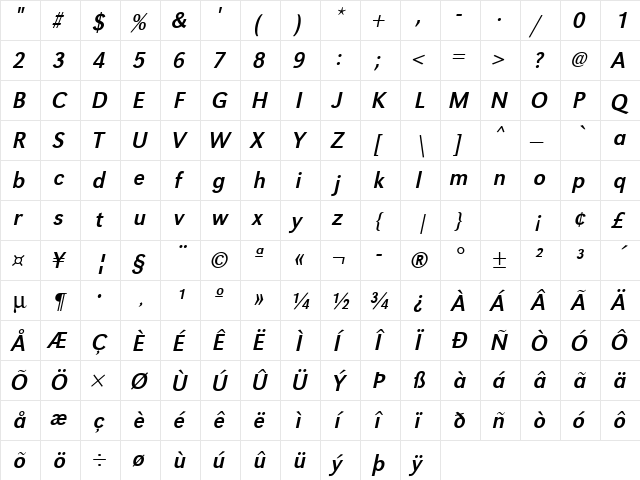
URWGroteskTNar Oblique Font Preview
URWGroteskTNar Oblique
Design Context for URWGroteskTNar Typeface
URWGroteskTNar has the quiet confidence of well-executed sans-serif typography: versatile, unobtrusive, and dependable at any size. The slanted form adds forward momentum and visual energy.
Font Pairing: Works well alongside a characterful serif or display font that can carry the expressive load while URWGroteskTNar handles the functional copy.
Pro Tip: Pair URWGroteskTNar with a display or serif font for headlines — its neutral character makes it an excellent supporting player in complex typographic systems.